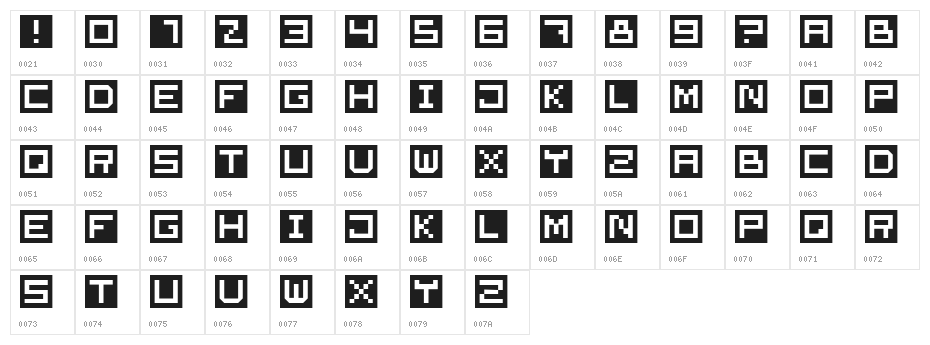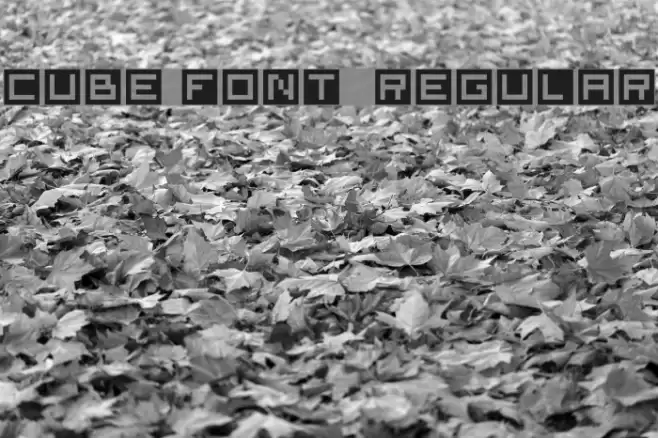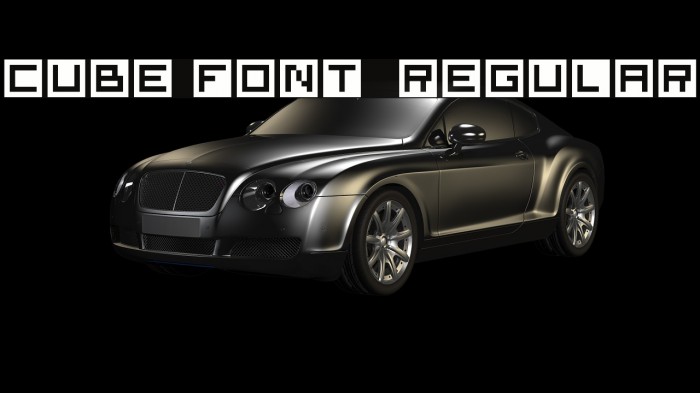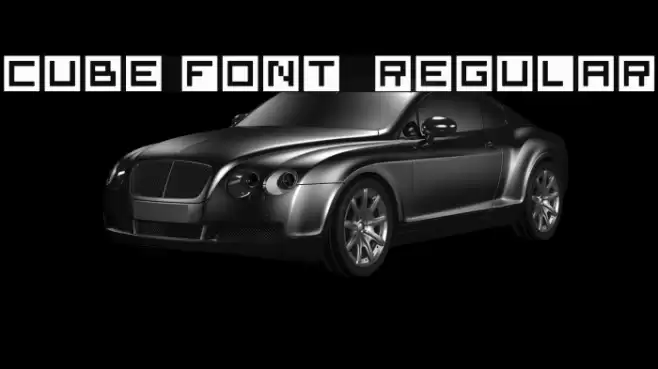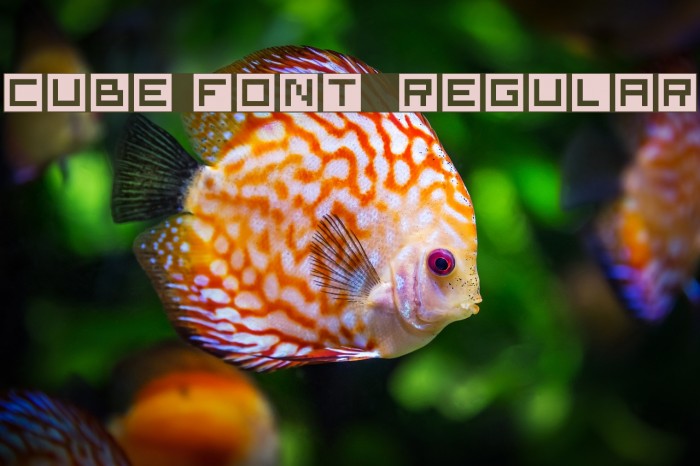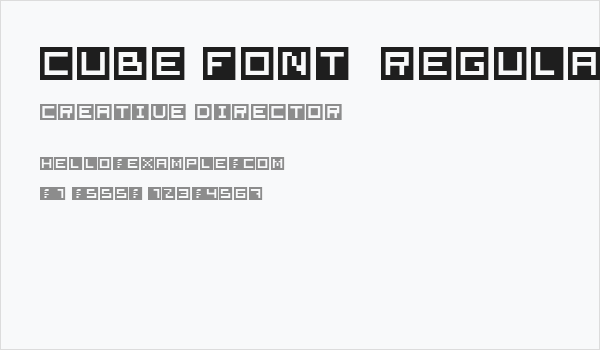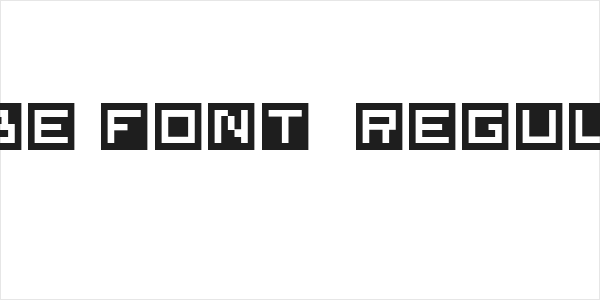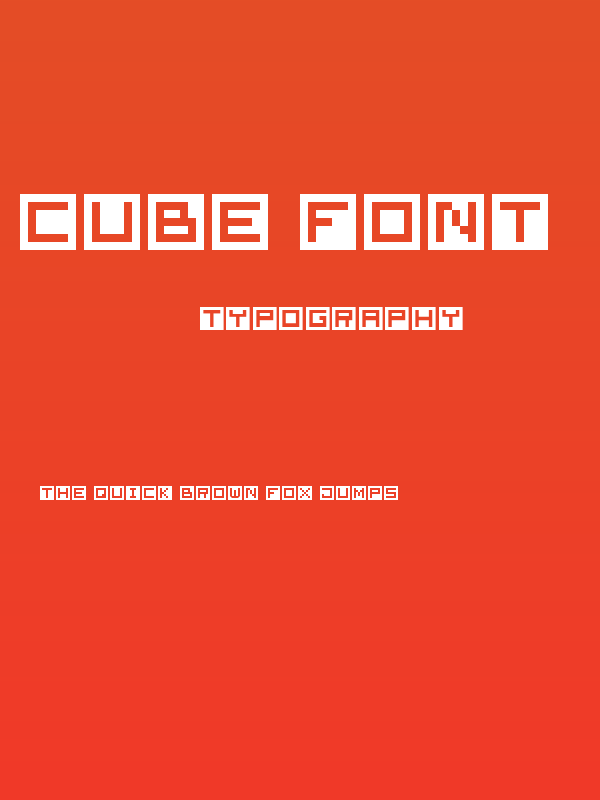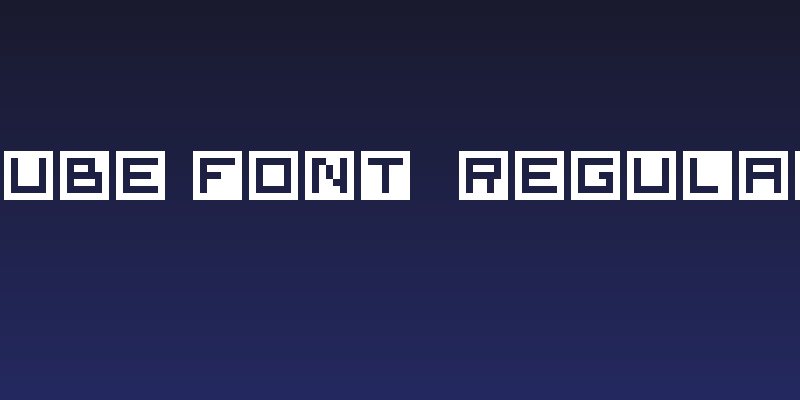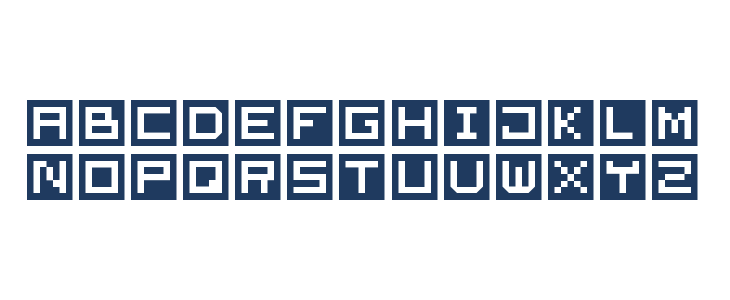
Cube Font Regular Font
Cube Font Regular Description
This font features a bold, geometric design with each character enclosed in a square, creating a distinct and modern appearance. The characters are constructed with thick lines and sharp angles, giving them a blocky, pixelated look reminiscent of early digital displays or video game graphics. The uniformity of the squares provides a consistent rhythm and structure, making it highly legible even at smaller sizes. The font's unique style is both playful and futuristic, making it suitable for creative projects that require a strong visual impact.
| Proposed Projects | Ideal for video game graphics, tech-themed posters, digital art, or any project needing a retro-futuristic aesthetic. |